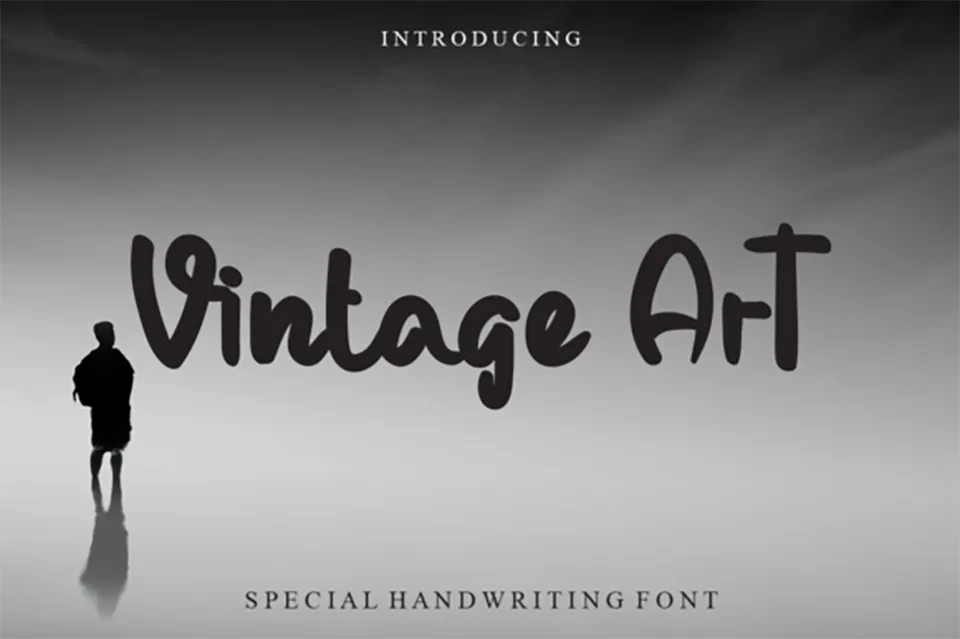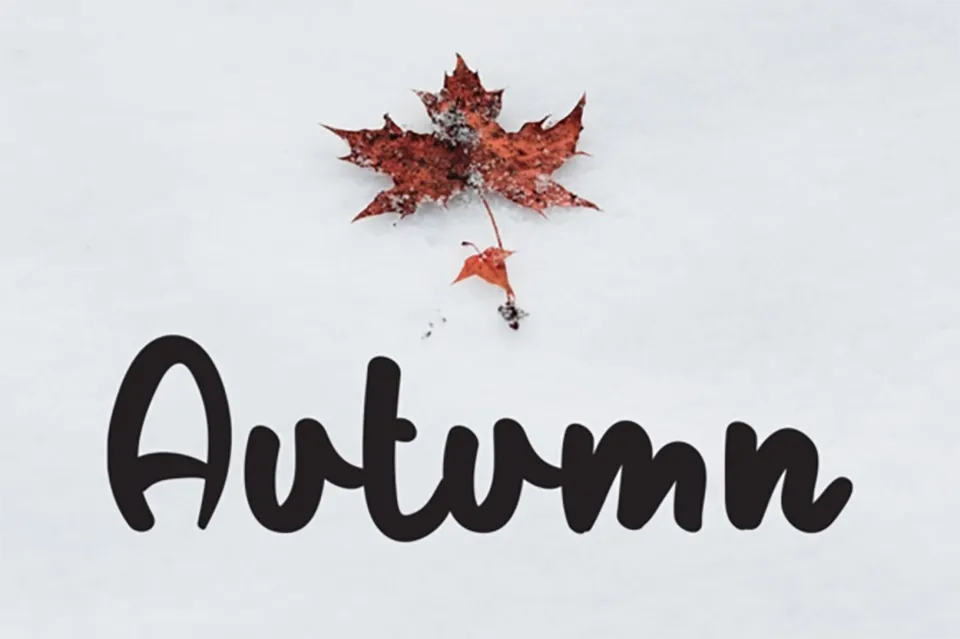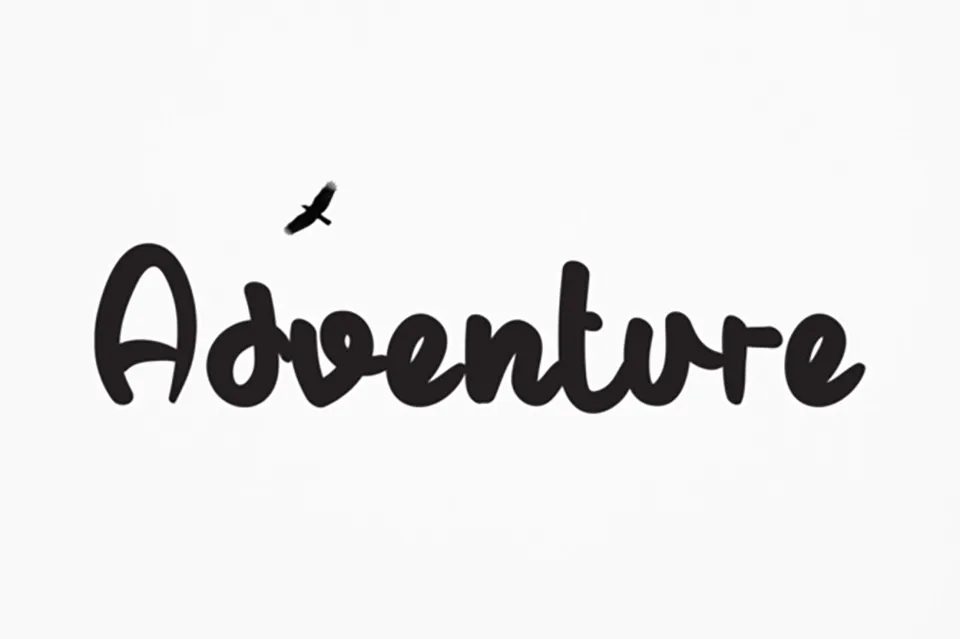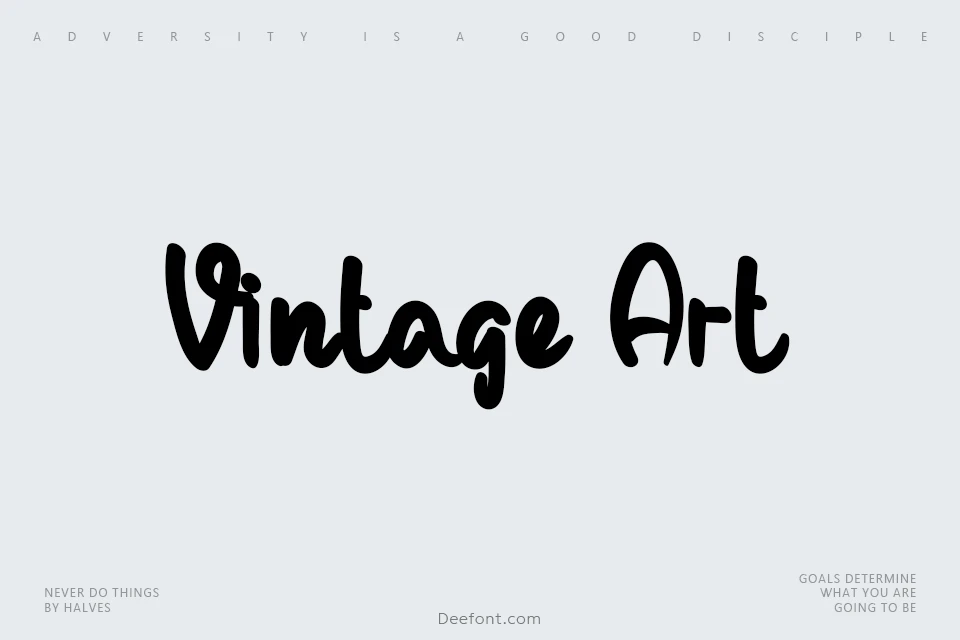
Vintage Art Font
Vintage Art Font is presented as a special handwriting typeface. It features bold, rounded letterforms that flow together seamlessly, creating a friendly and approachable script style. While capturing a handcrafted feel, it maintains a clean, modern aesthetic. The font subtly evokes vintage charm through its relaxed, handwritten nature rather than specific historical details. It’s well-suited for branding, invitations, posters, social media graphics, and projects seeking a unique personality with an artistic, slightly retro touch.